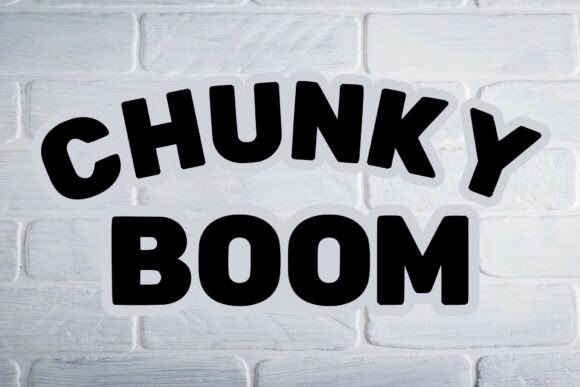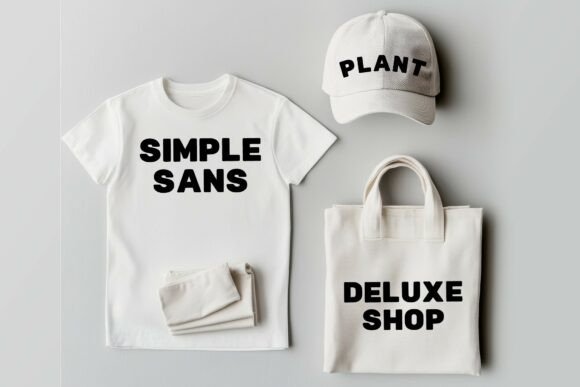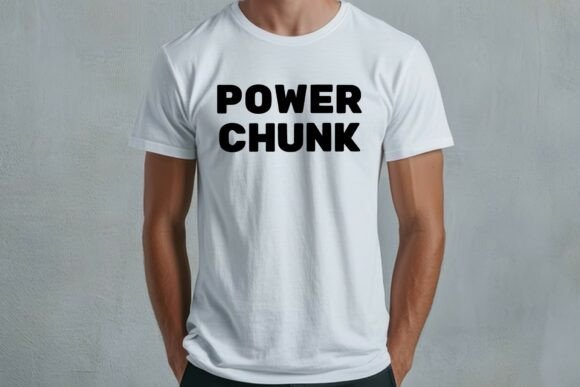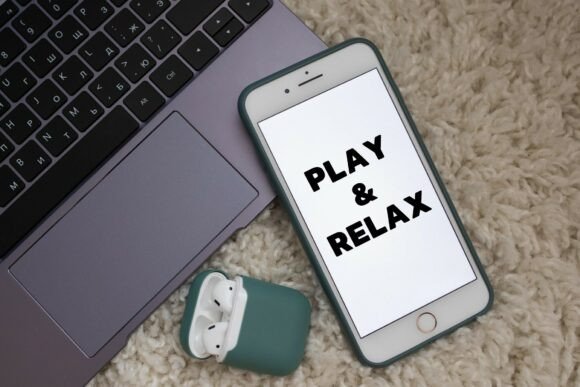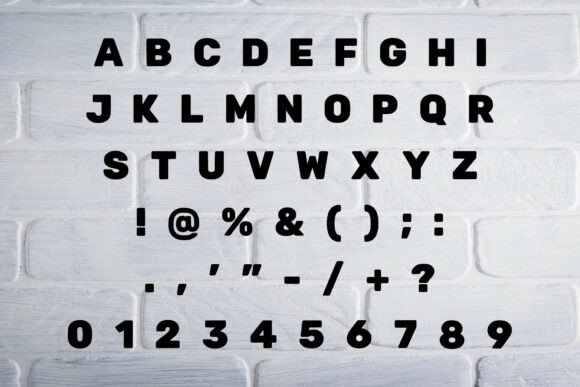
The Power of Typography: Unleashing the Giant Sans Font
Do you remember the moment when you stumbled upon the perfect font to elevate your design project? It’s a feeling of excitement and satisfaction, knowing that you’ve found the perfect tool to communicate your message. For designers, typography is a crucial element that can make or break a design. And that’s where the Giant Sans Font comes in – a bold and powerful display font designed to make a strong visual impact.
With its thick strokes, rounded edges, and modern sans-serif style, the Giant Sans Font is perfect for eye-catching headlines, logos, posters, and branding projects. Its clean yet heavy structure ensures excellent readability while maintaining a fun and contemporary look. Whether you’re creating merchandise, social media graphics, or packaging designs, the Giant Sans Font delivers a confident and stylish presence.
- Unique Characteristic: Giant Sans Font features a unique sans-serif design with bold and clean lines, making it perfect for headings and titles
Giant Sans Font Review
Giant Sans Font is a unique and interesting font that can be a great addition to certain designs. ✨ One of the things that works well is its bold and playful feel, which can be perfect for titles and headings. It’s also quite versatile and can be used for a wide range of applications, from branding to advertising.
- ✨ Suitable for bold and eye-catching titles and headings
- ✨ Versatile and can be used for various applications
- ✨ Available in multiple weights and styles
However, there are some limitations to consider. ⚠️ One of the main issues is that it may not be the best choice for body text, as it can be quite difficult to read in smaller sizes. Additionally, some of the letterforms can be quite complex, which may not be ideal for logos or other small-scale applications.
- ⚠️ May not be suitable for body text due to readability issues
- ⚠️ Complex letterforms may not be ideal for logos or small-scale applications
- ⚠️ May require additional styling or formatting to achieve desired effect
Overall, I think Giant Sans Font is a solid choice for designers who want to add some personality and flair to their projects. While it may not be suitable for every application, it can be a great addition to the right design. With some careful consideration and planning, it can help create a bold and eye-catching visual identity.
Tip: Use Giant Sans for headings and titles to create a bold and eye-catching design.
Tip: Use Giant Sans in combination with other bold fonts to create a striking visual effect.
Tip: Use Giant Sans for titles and headings to create a clear and concise presentation or document.
Giant Sans font is ideal for:
- Signage and posters
- Marketing materials and advertising
Remember to use Giant Sans font in moderation to avoid overwhelming your audience.